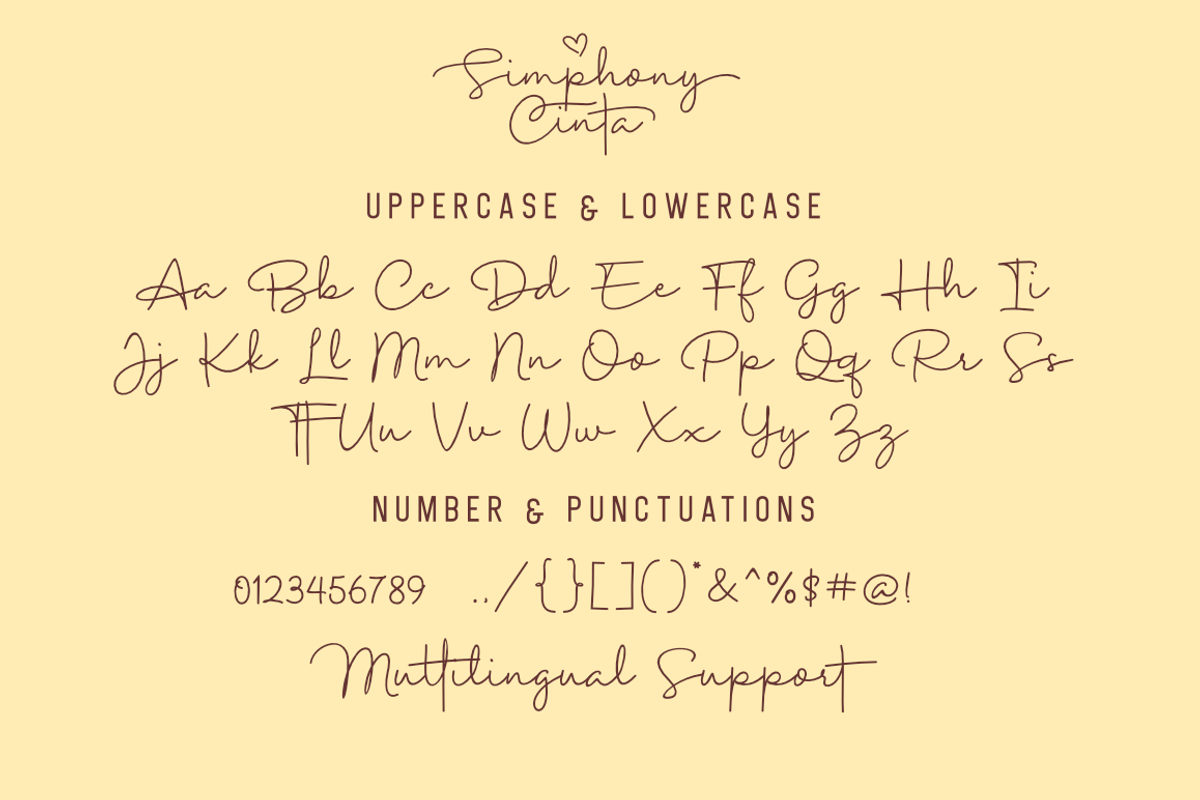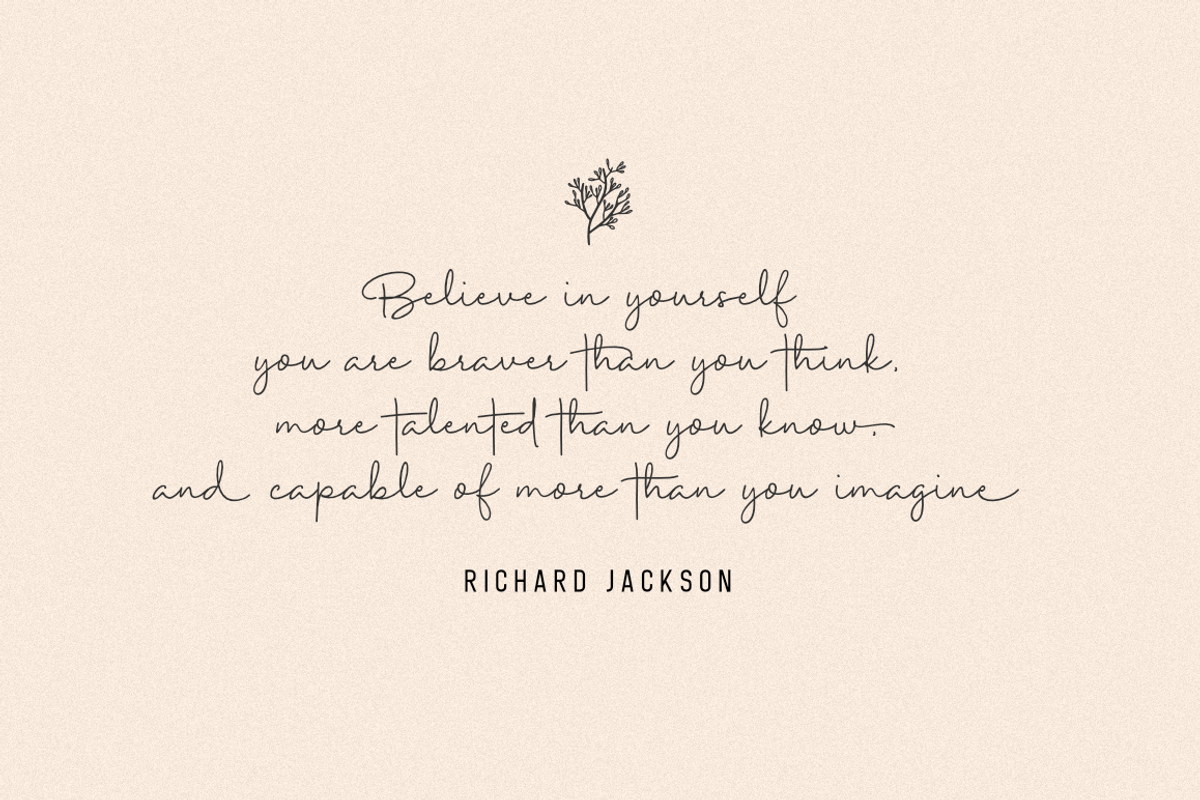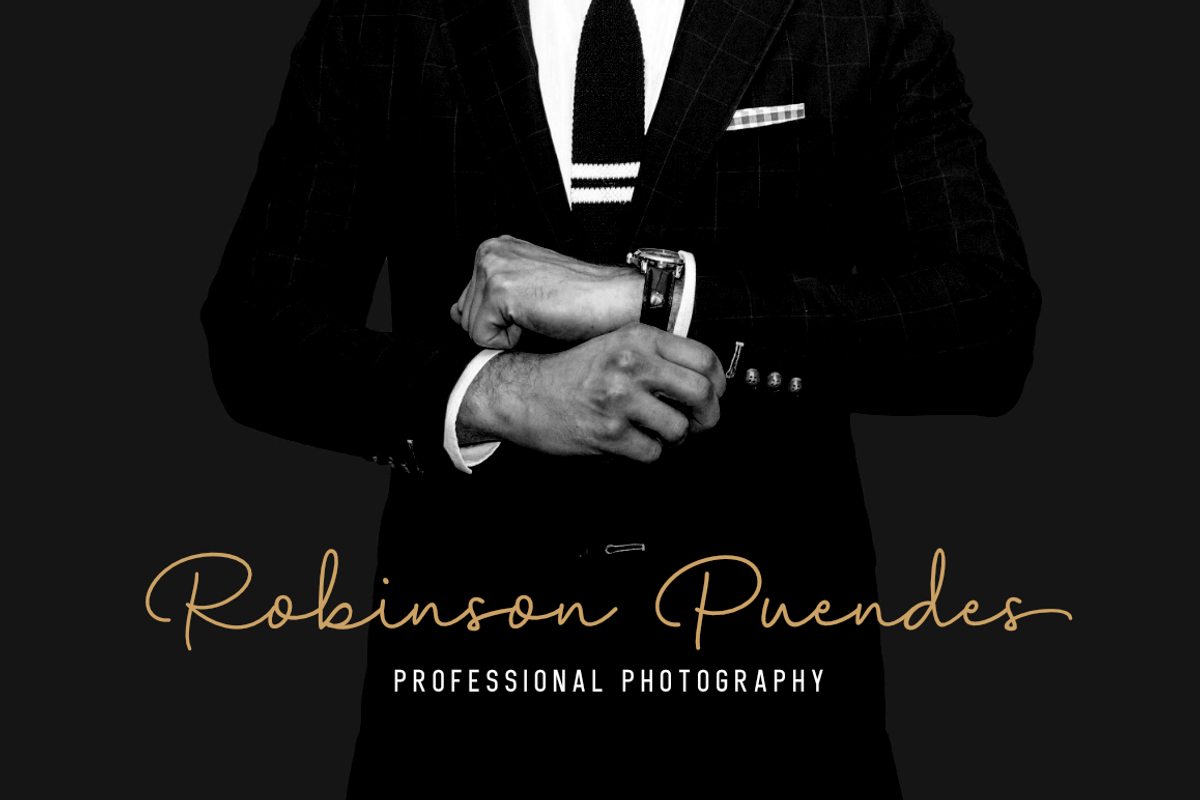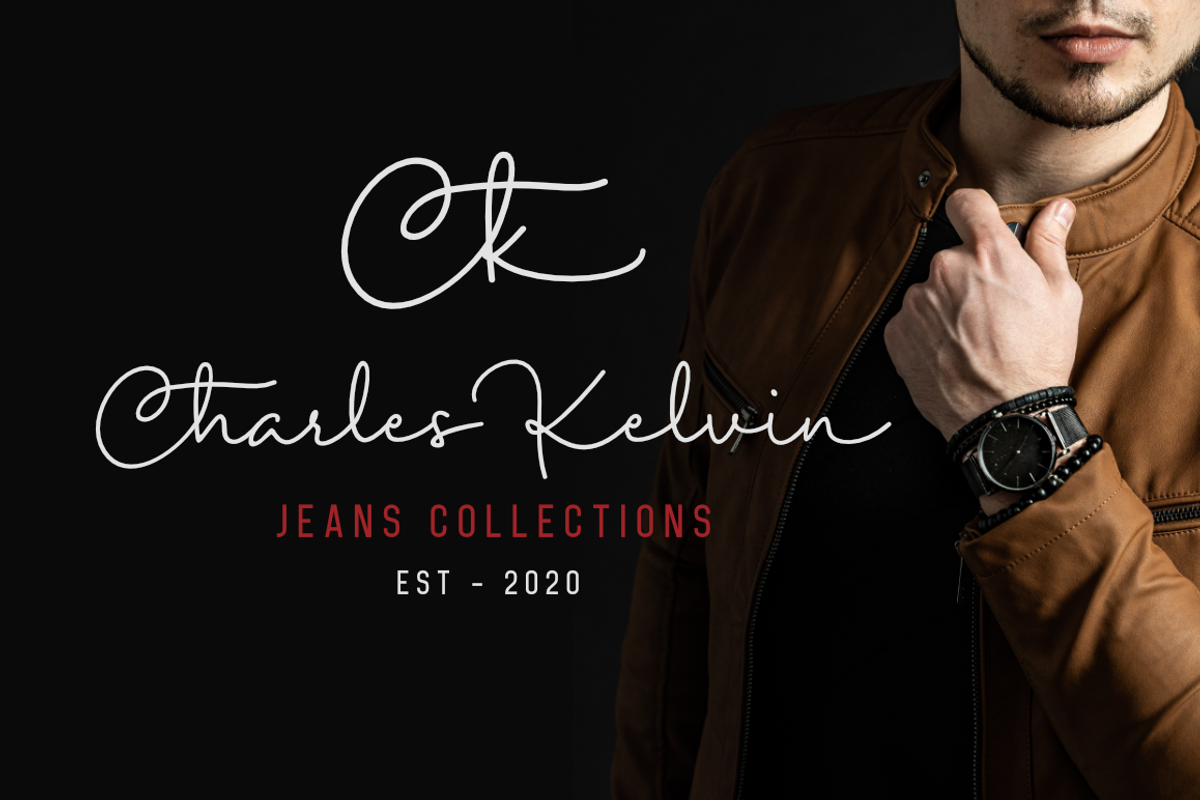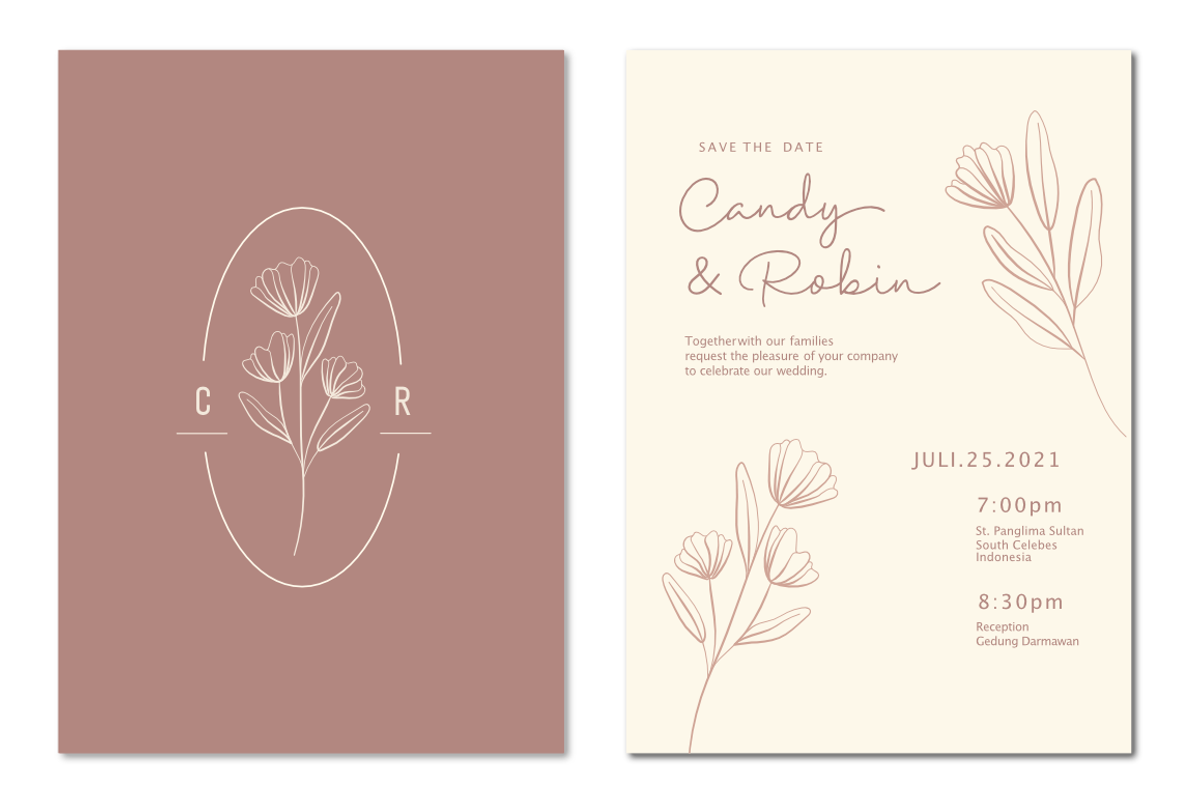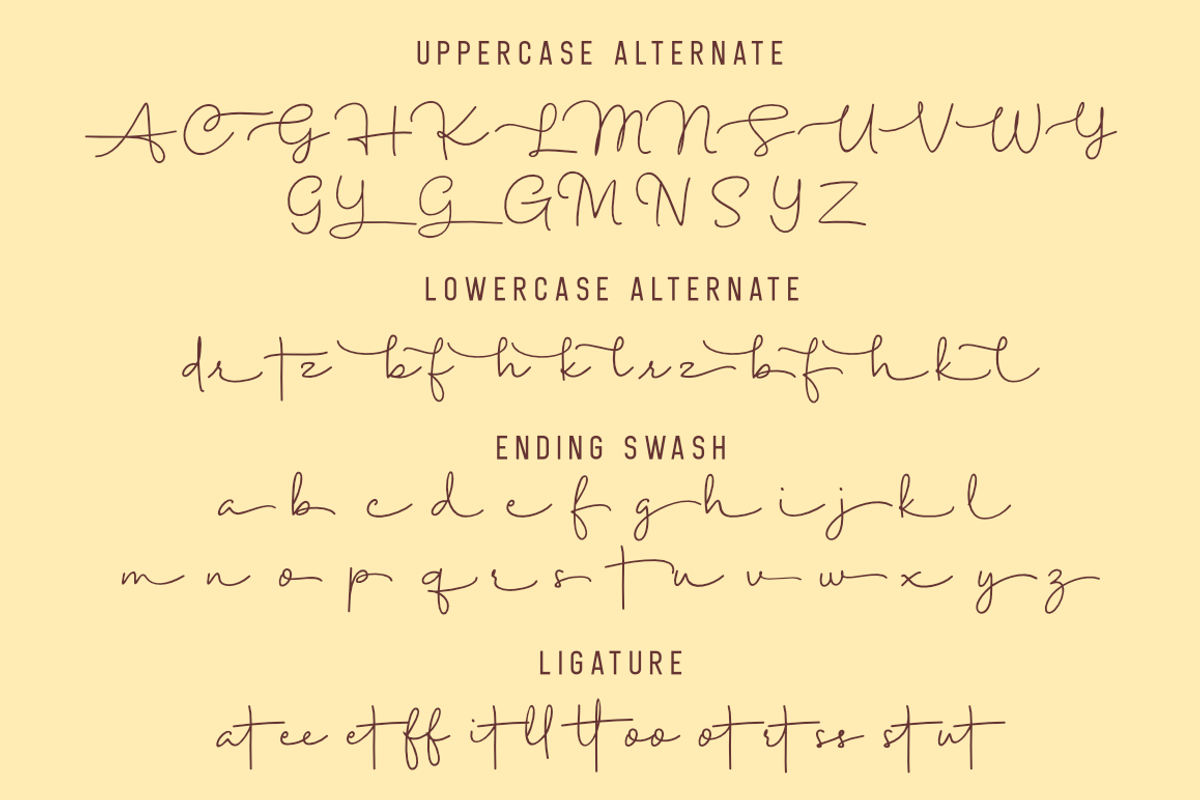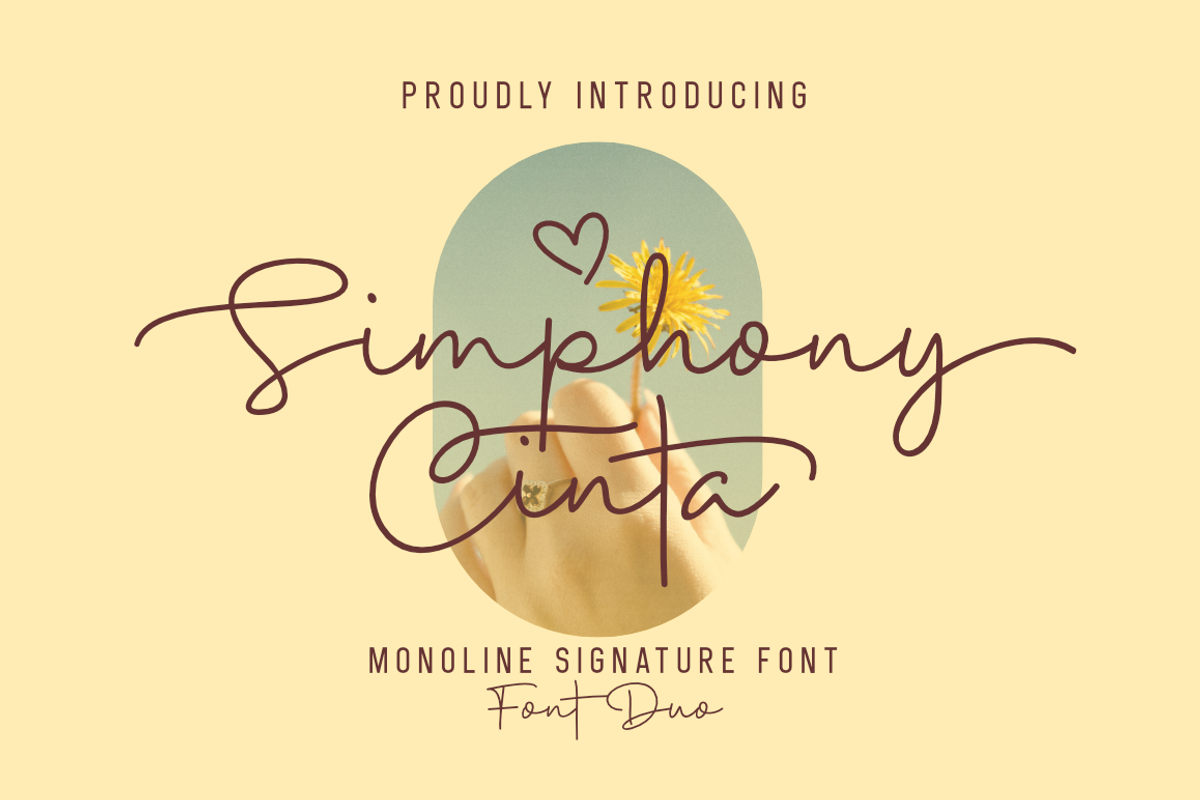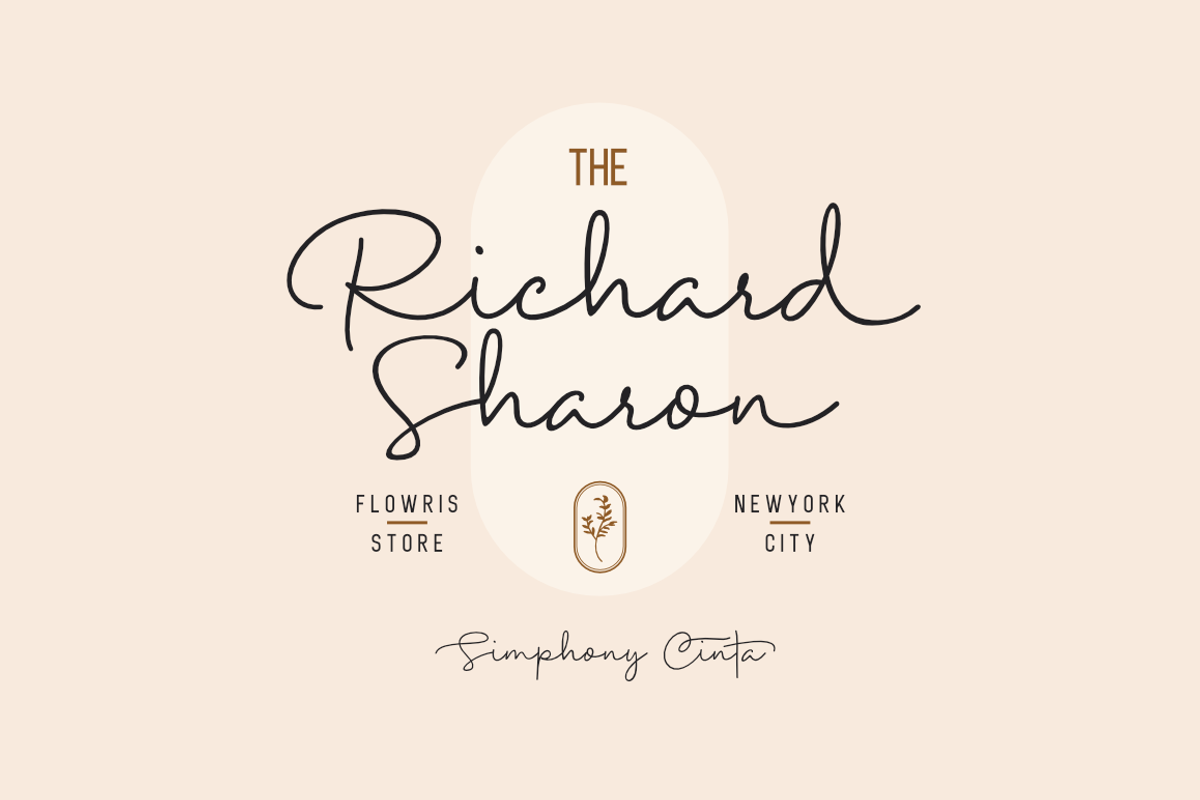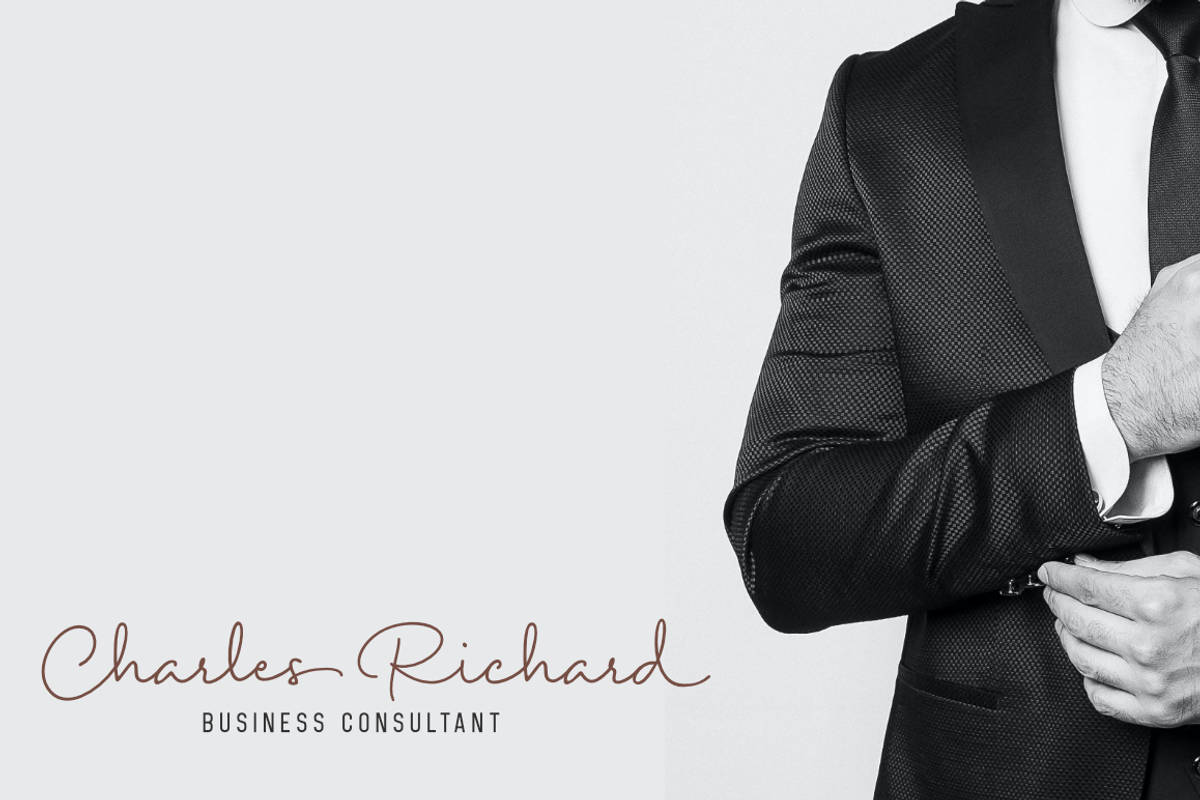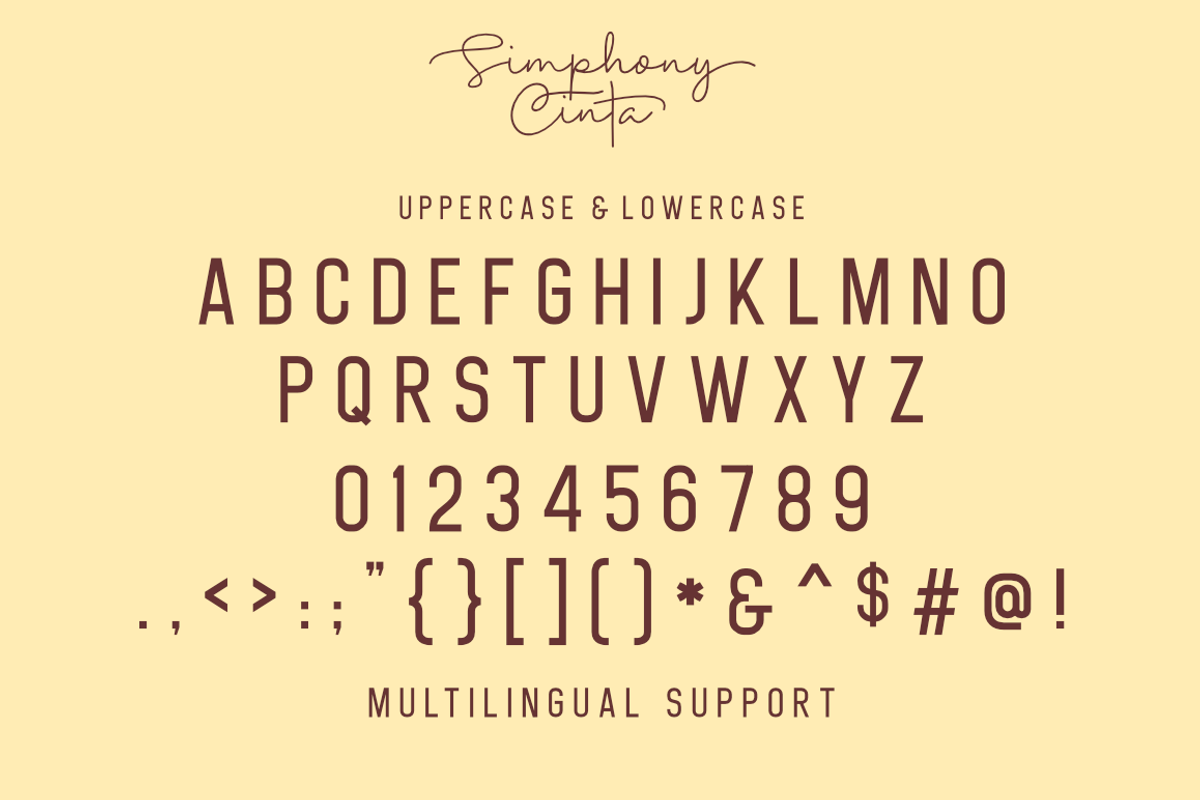
Simphony Cinta - Font Duo
Symphony Cinta is a unique and elegant monoline font, this font was created by being inspired by a signature by someone, then developed into a work that can be used by many people.
This font is suitable for branding, logos, magazines, weddings, and more
This font has alternates and ligatures that will enhance your design.
- Alternate and Ligature